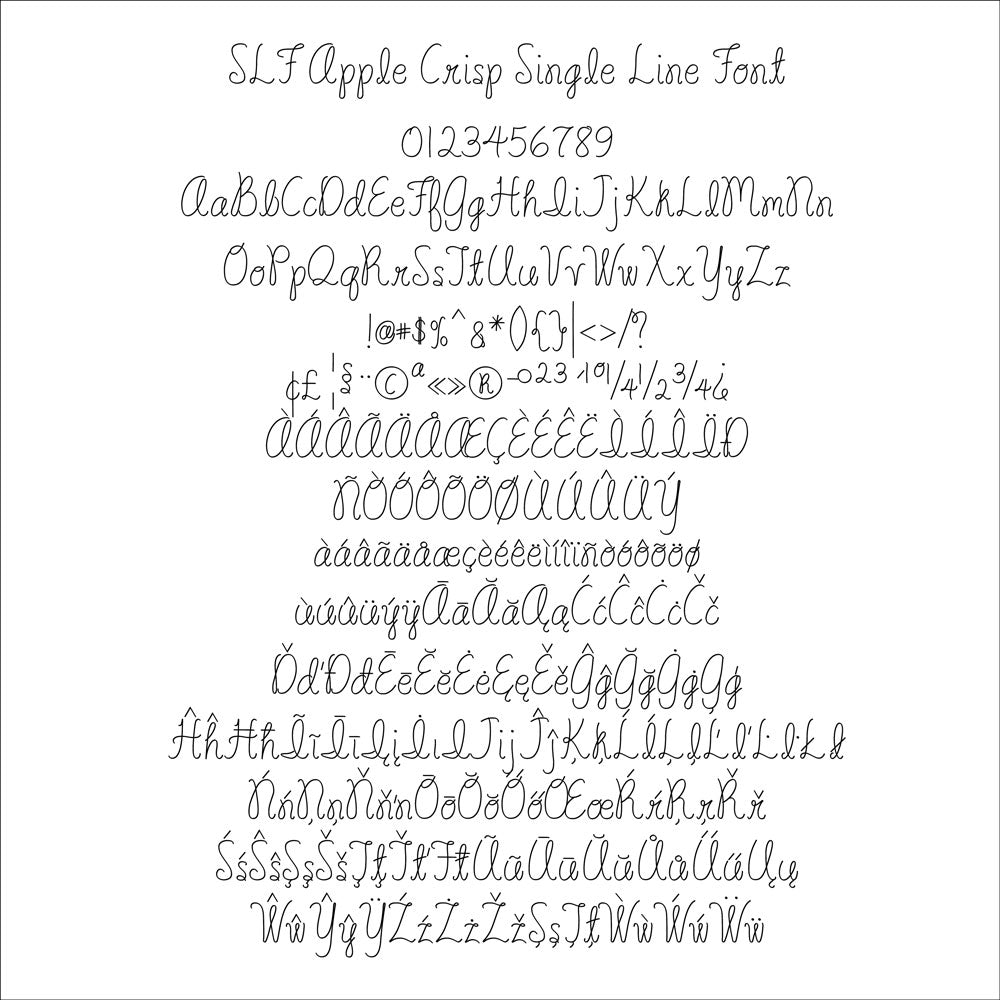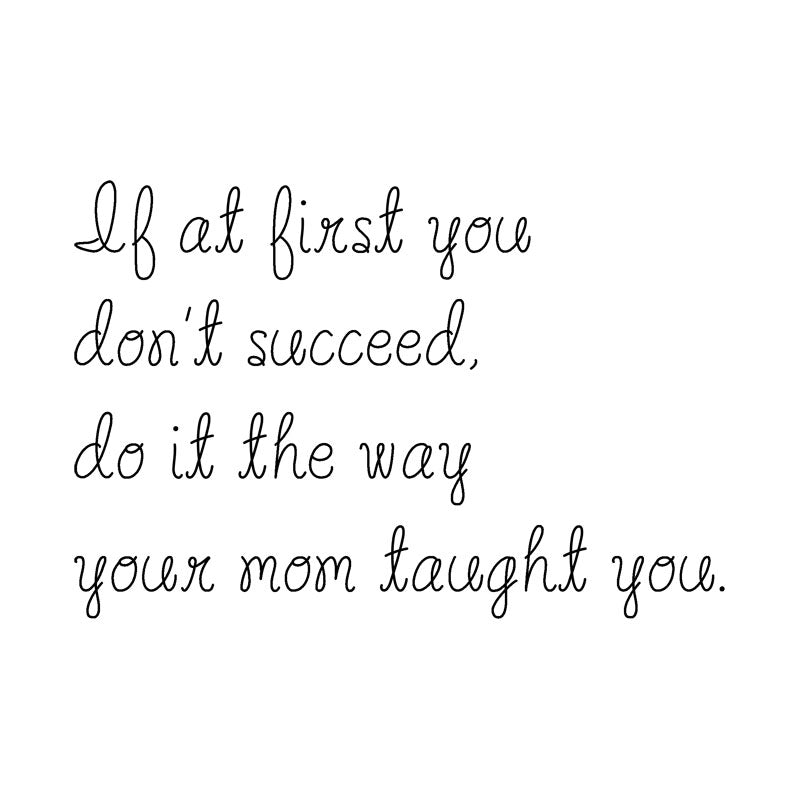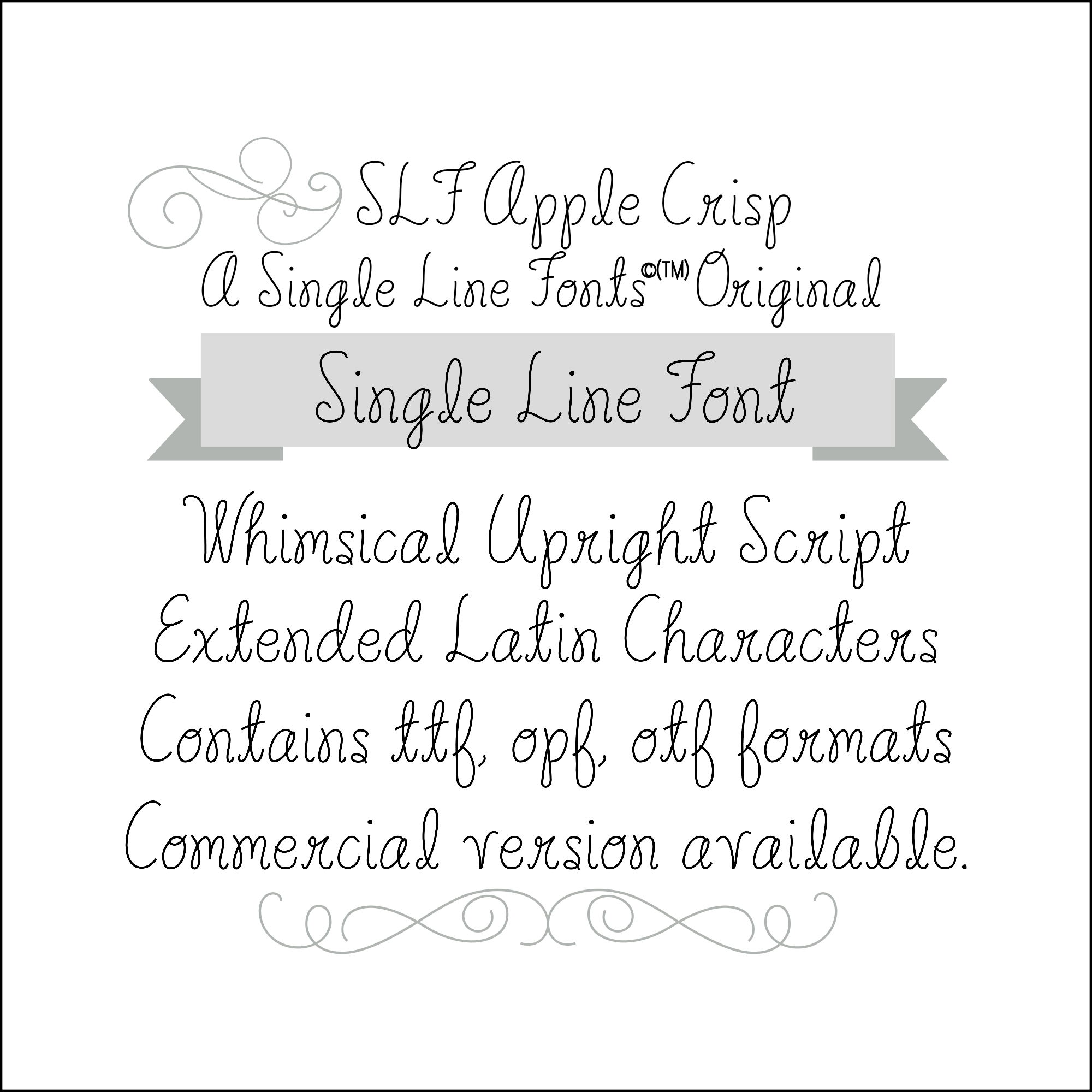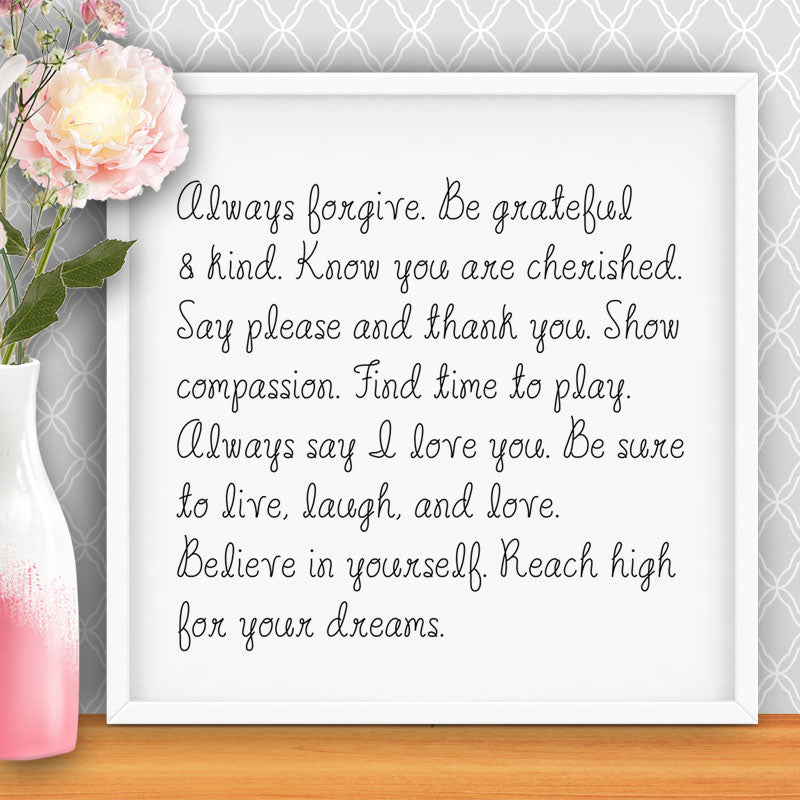
single line font slf apple crisp example. upright script font with extended latin characters in ttf, otf, opf formats.
Single Line Font "SLF Apple Crisp"
SLF Apple Crisp
Introducing SLF Apple Crisp, our newest script font that combines casual playfulness with understated charm, perfect for various creative projects like sign making, cards, foil quill, engraving, Glowforge, embossing, wood router work, and sketch pens (Silhouette, Cricut, Pazzles Vue, and similar). This versatile font set includes alternate language characters and is available in TTF (True Type Font) and OPF (Open Path Format) versions.